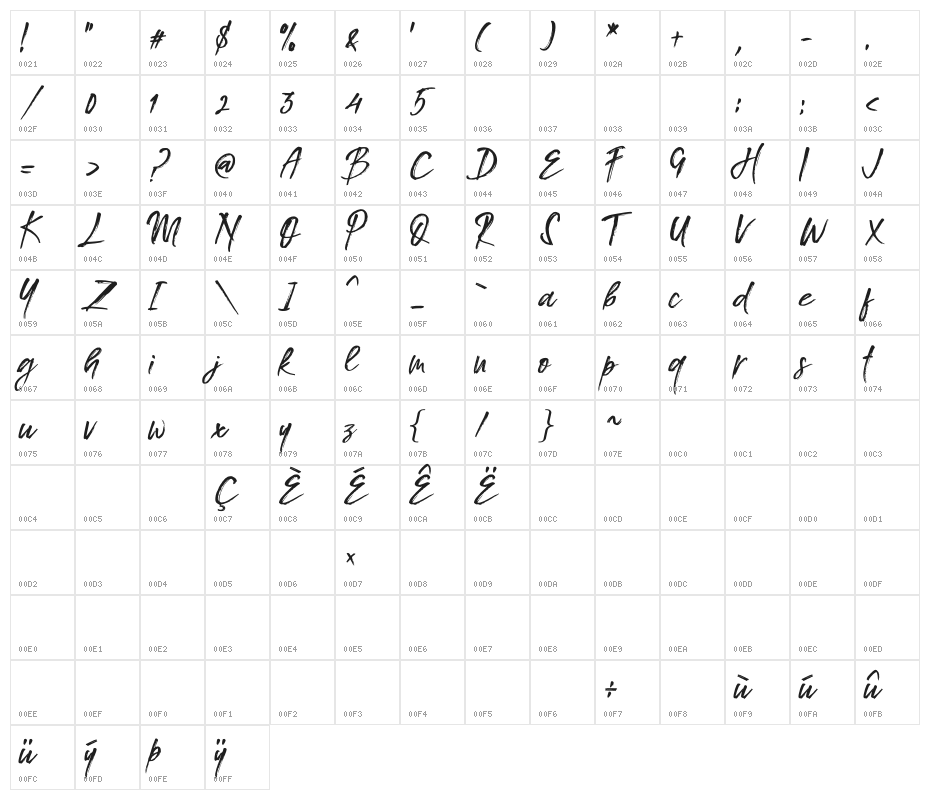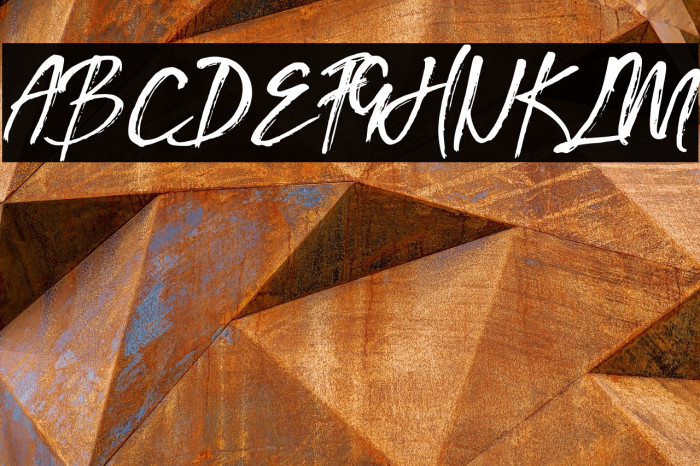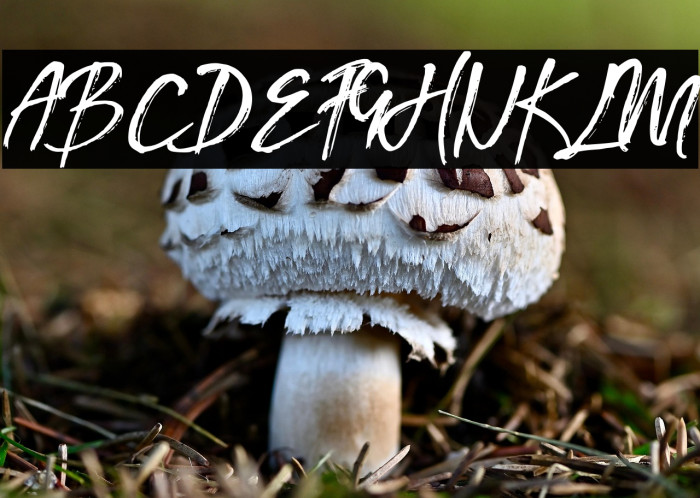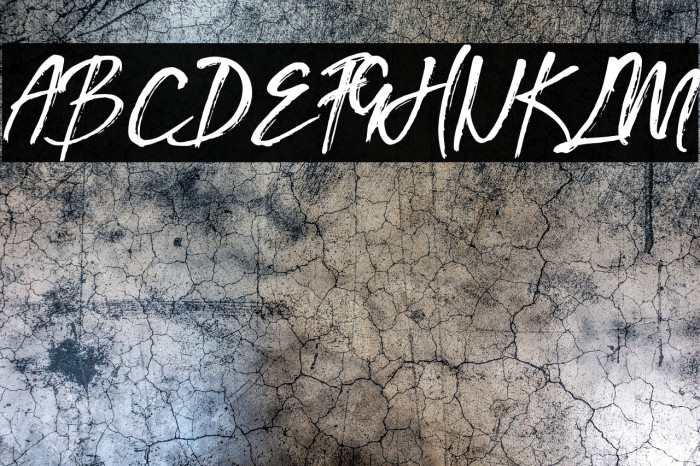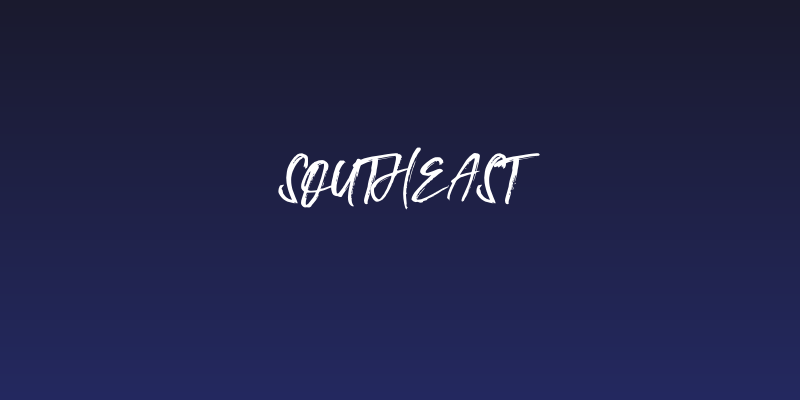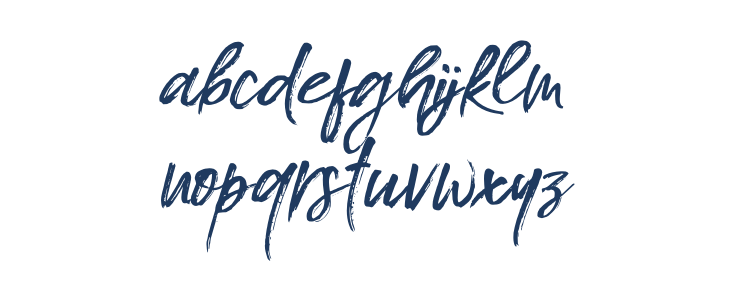
Southeast Font
Southeast Description
This font features a dynamic and expressive style, characterized by its brush-like strokes and energetic flow. The letters exhibit a sense of movement and spontaneity, with varying stroke widths that create a lively and artistic appearance. The uppercase and lowercase letters maintain a consistent style, with a slightly irregular baseline that adds to the handcrafted feel. The numbers and special characters are equally expressive, fitting seamlessly with the overall aesthetic. This font's bold and artistic nature makes it ideal for creative projects that require a personal touch.